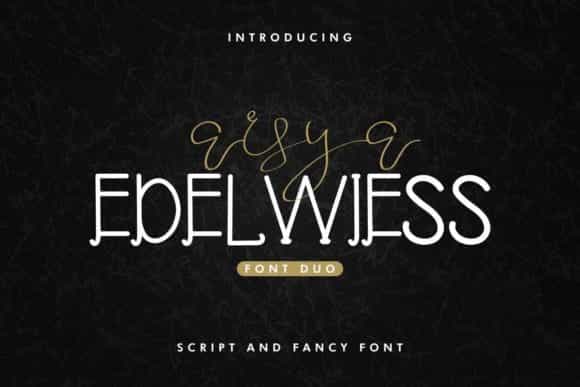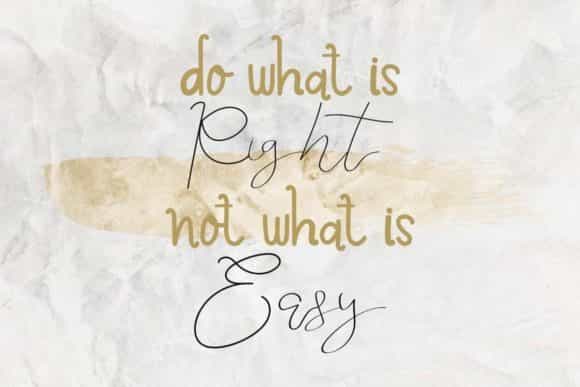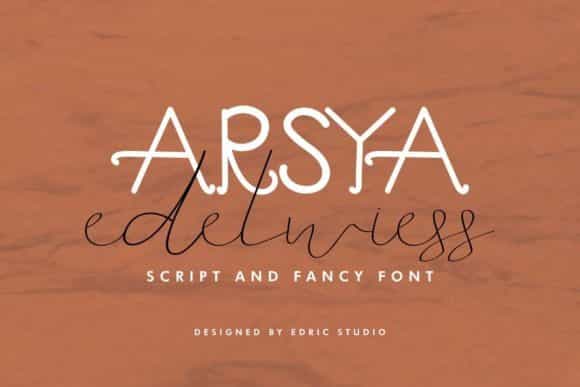
Arsya Edelwiess Font Duo
“Arsya Edelwiess, a new Funny Font Duo.” The text you write has been carefully elaborated on, and all the letters are beautifully designed to make your writing stand out. With modern script style this font will perfect for many different project ex: The logo, photography, watermarking quotes, blog header and also the poster of wedding are some of the many things that can be done using Canva. Other than these there is branding for fashion apparel letter invitation stationery etc..